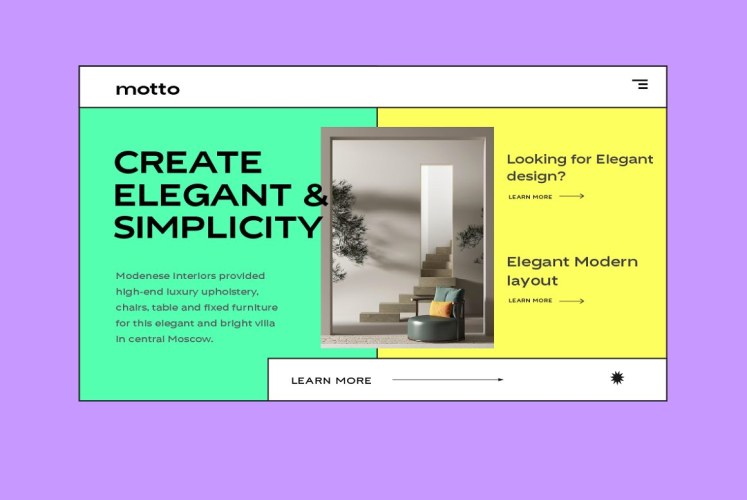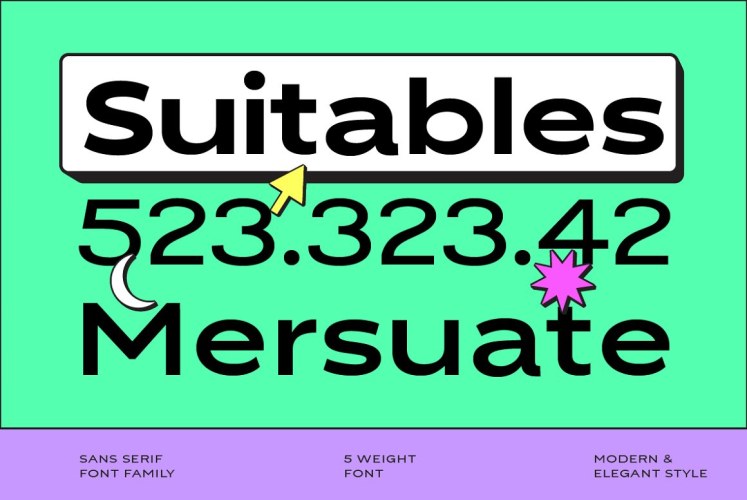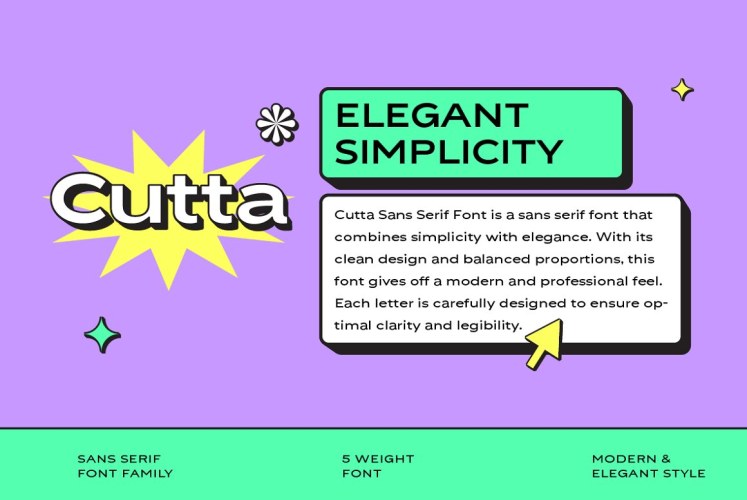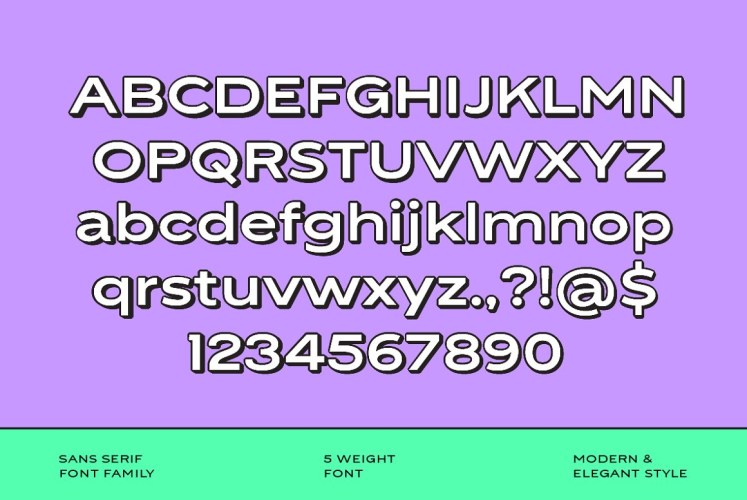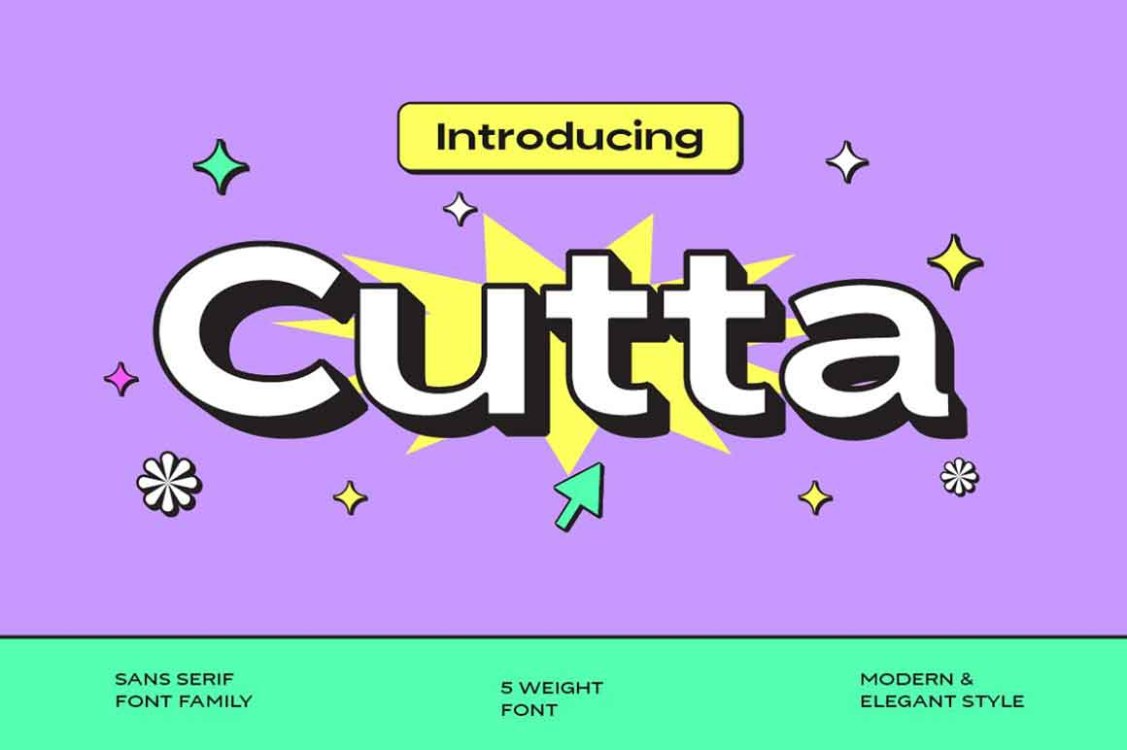
Cutta Sans Serif Fonts
Cutta Modern Sans Serif Fonts come in a variety of font styles, providing unlimited flexibility in expressing creativity. Ranging from sleeker and lighter styles to thicker and stronger styles, these fonts allow you to customize the appearance of your text according to your preferences and design needs.
Having a Cutta Modern Sans Serif Font in your design project will give it a fresh and modern look. This font is suitable for use in a variety of contexts, including graphic design, branding, layouts, posters, and more. With the ability to display messages clearly and in a contemporary style, this font will ensure that your designs look professional and up-to-date.
Where Cutta Sans Serif Fonts works best
Cutta Sans Serif Fonts stays legible at small sizes, which makes it a strong choice for navigation, buttons and dashboards in web design and app interfaces.
Clean sans serifs like Cutta Sans Serif Fonts are the default language of SaaS, fintech and product branding.
What is Cutta Sans Serif Fonts good for?
Cutta Sans Serif Fonts is a Sans Serif Fonts typeface tagged Branding, Modern, Poster, Professional. It works well for headlines, logos, posters, social media graphics and branding projects that need a distinctive sans serif fonts look.